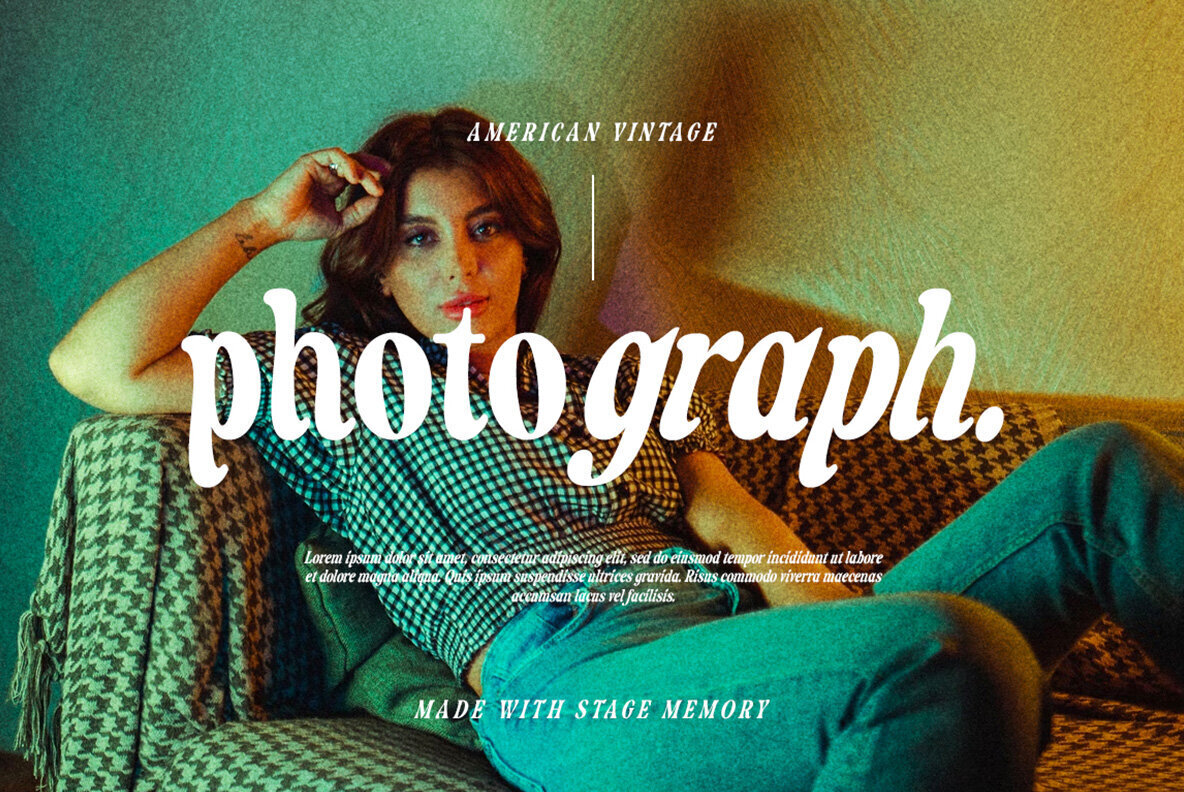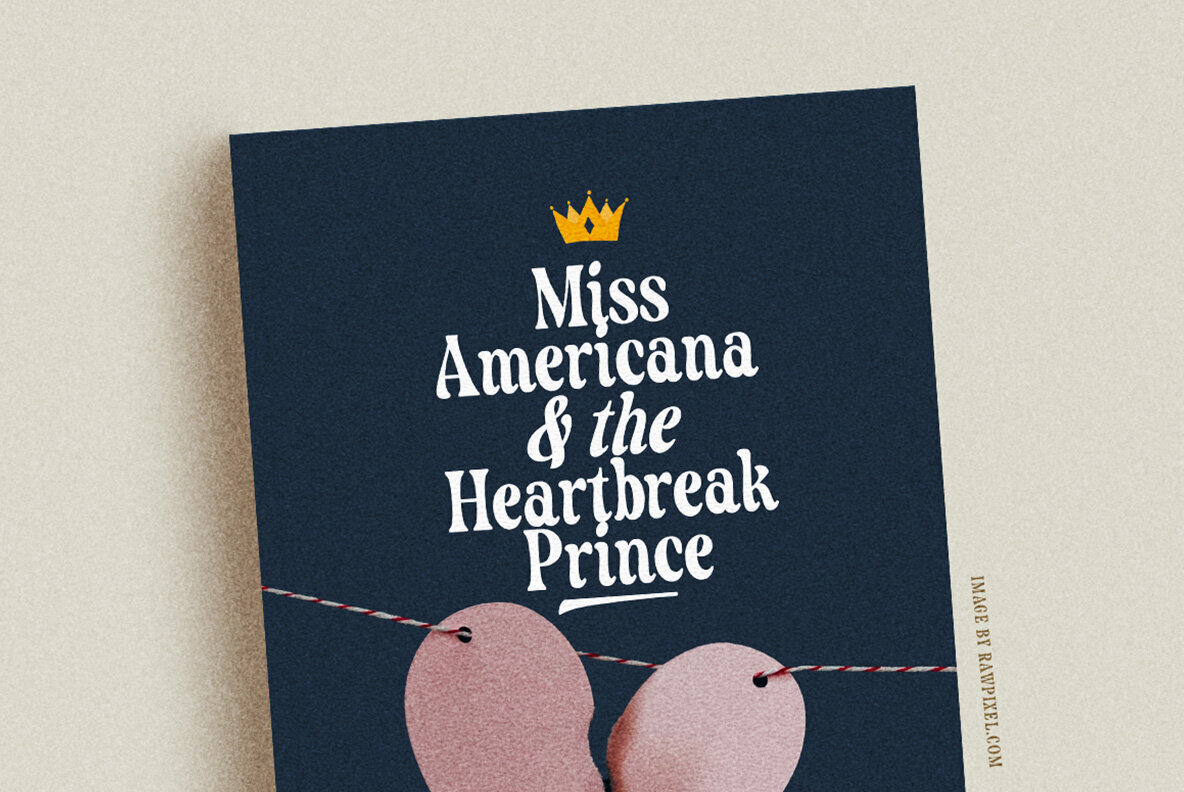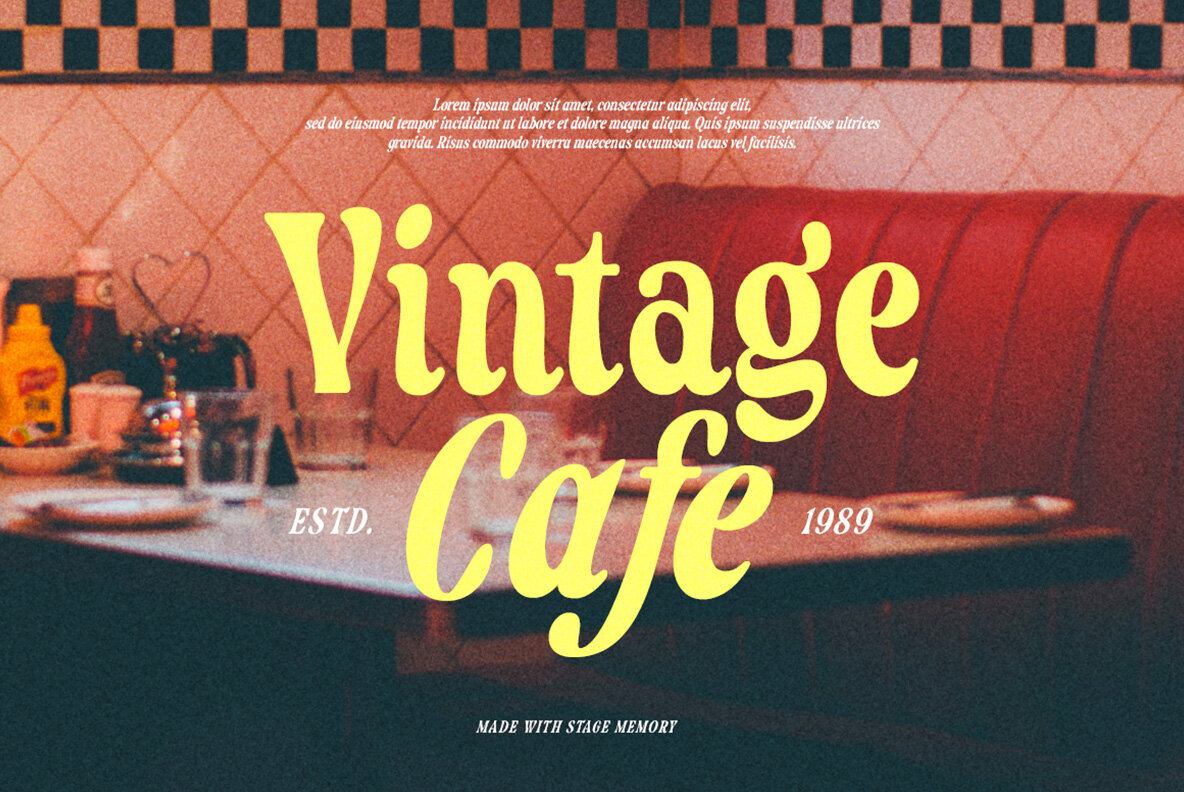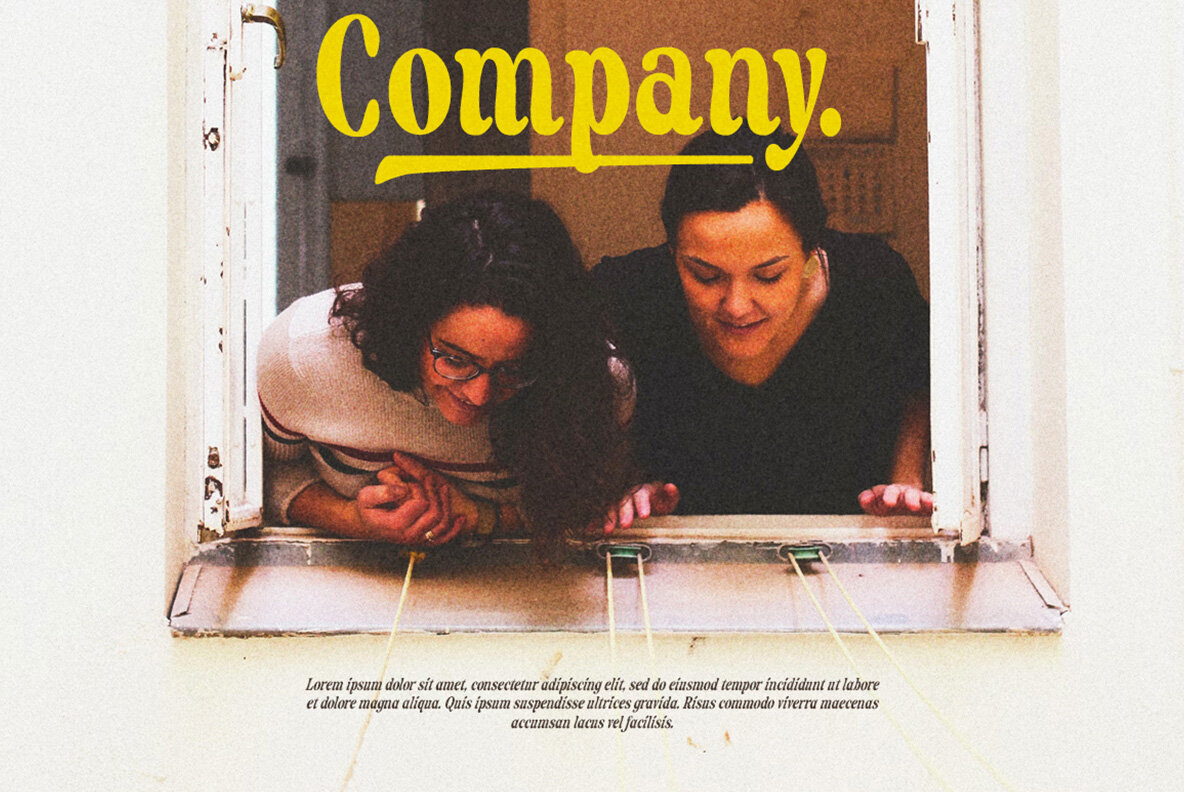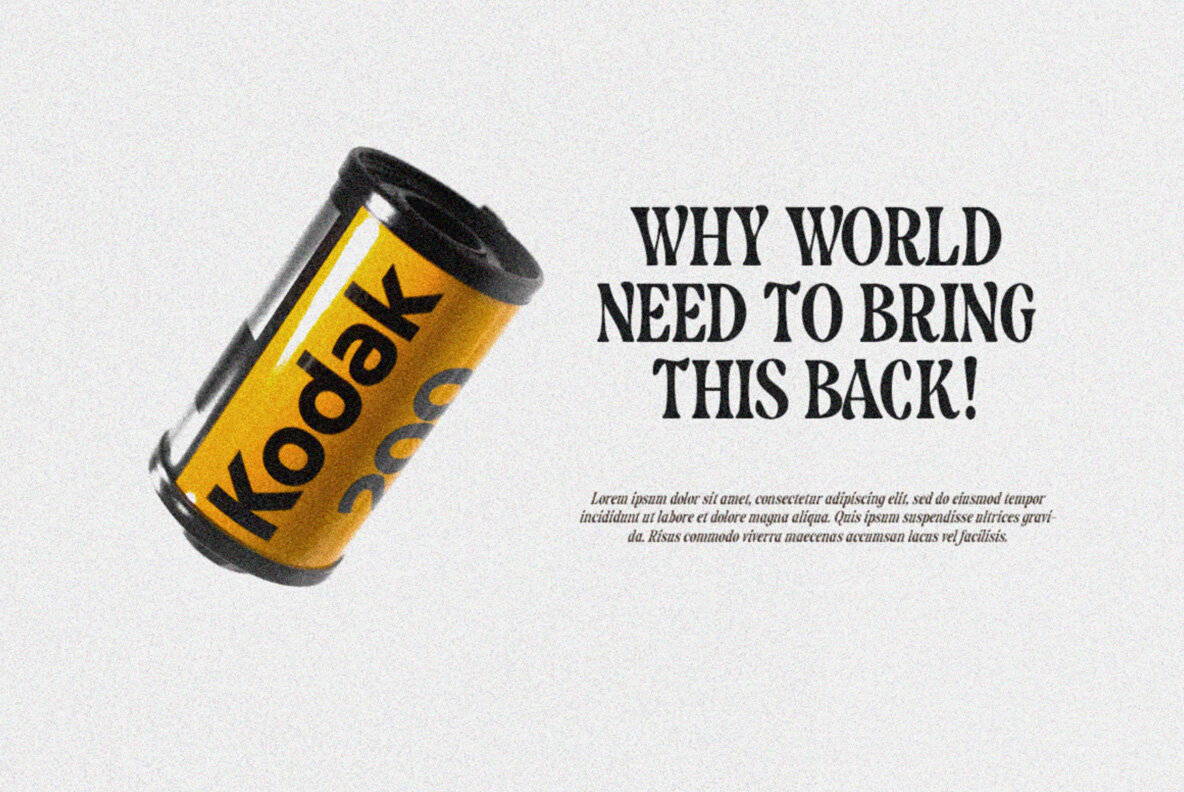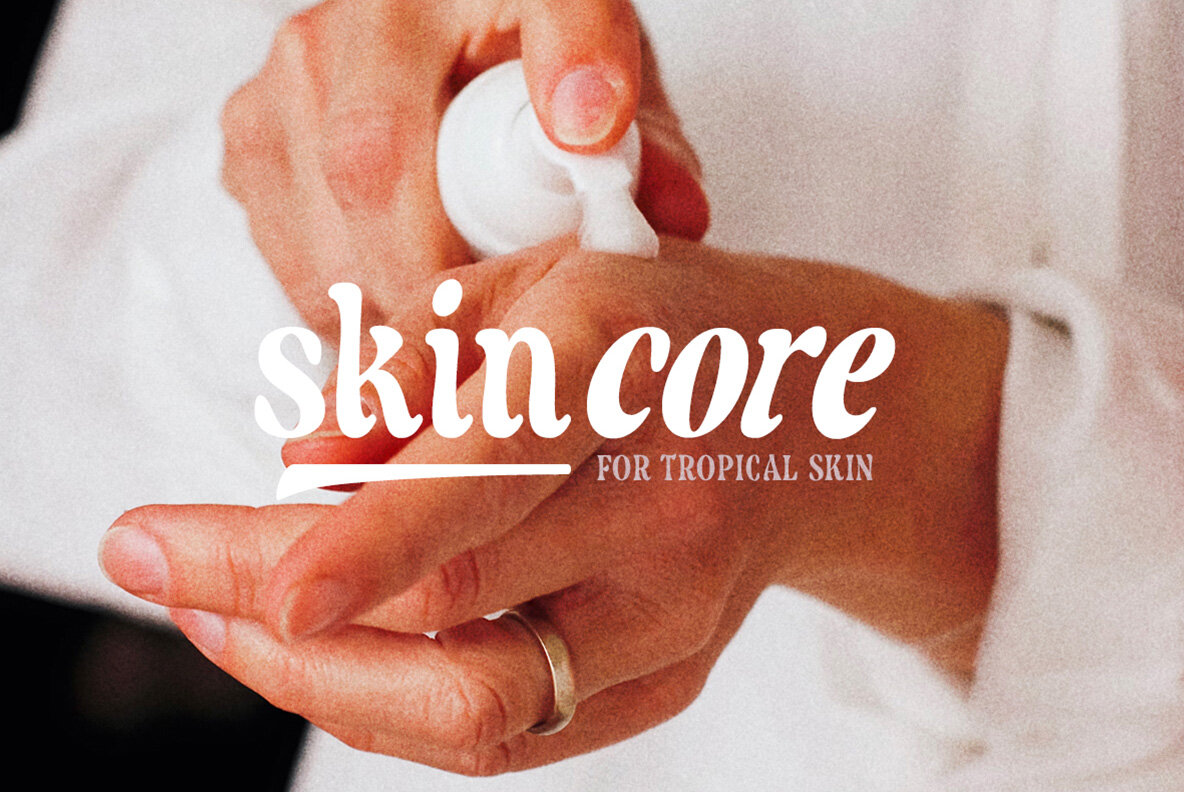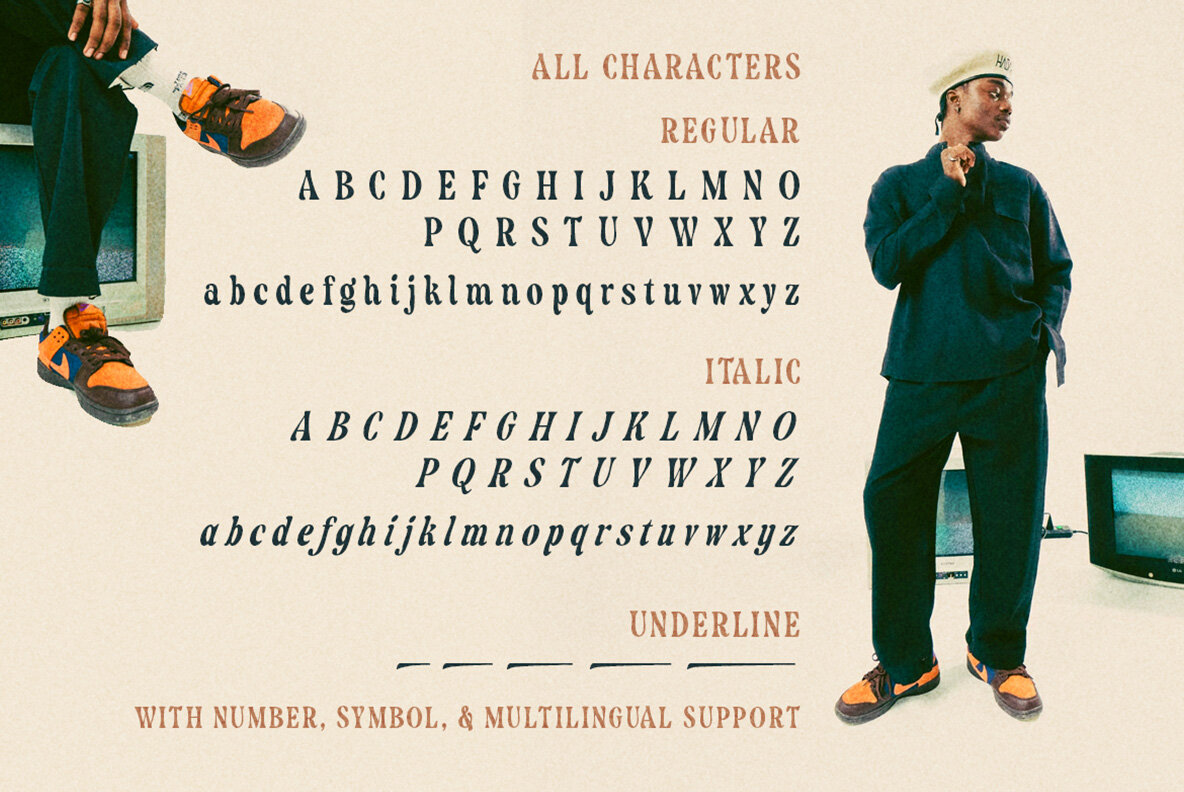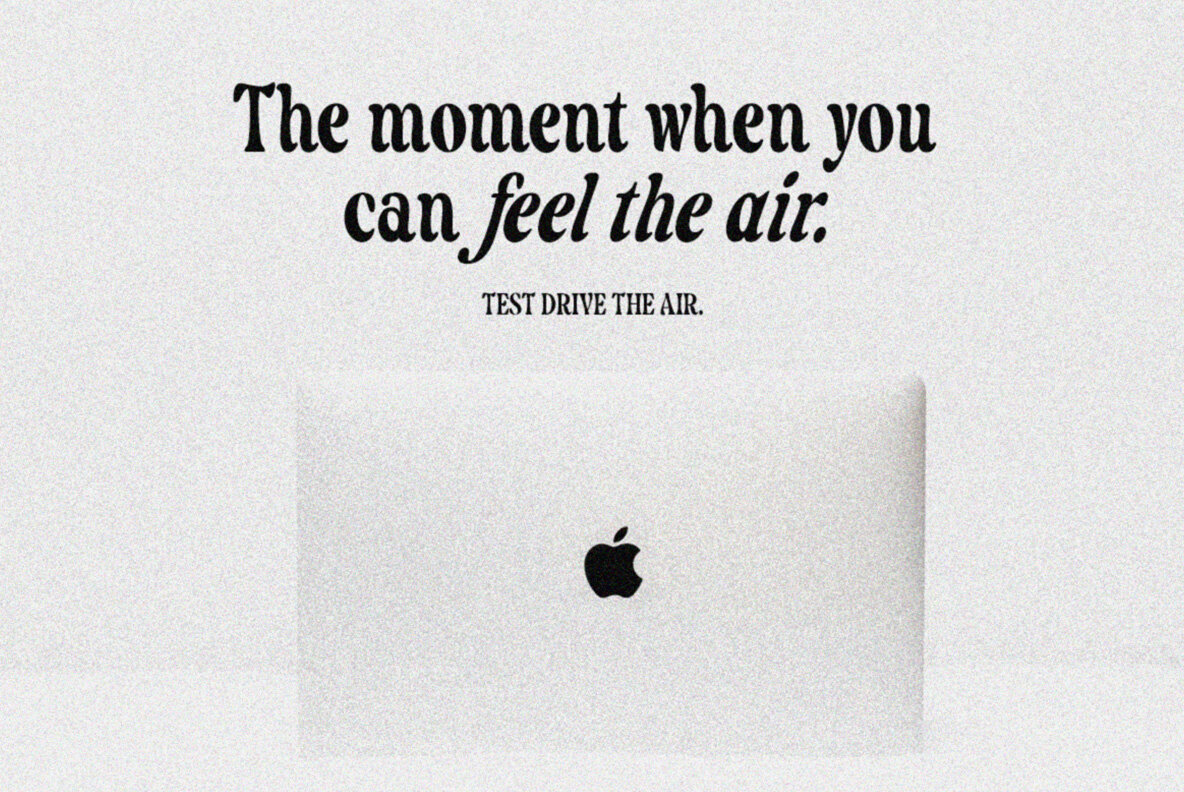
Stage Memory Font
Stage Memory seamlessly merges retro style with a bold serif aesthetic, offering both regular and italic versions for your design needs. This font infuses a charming vintage touch into presentations or logos, transforming any project into a chic and presentable masterpiece. Whether you're crafting a poster, organizing an event, or creating social media content, Stage Memory provides a distinct visual appeal. With multilingual support, it’s an ideal choice for a wide range of audiences.Stage Memory: Retro Elegance with a Modern Twist